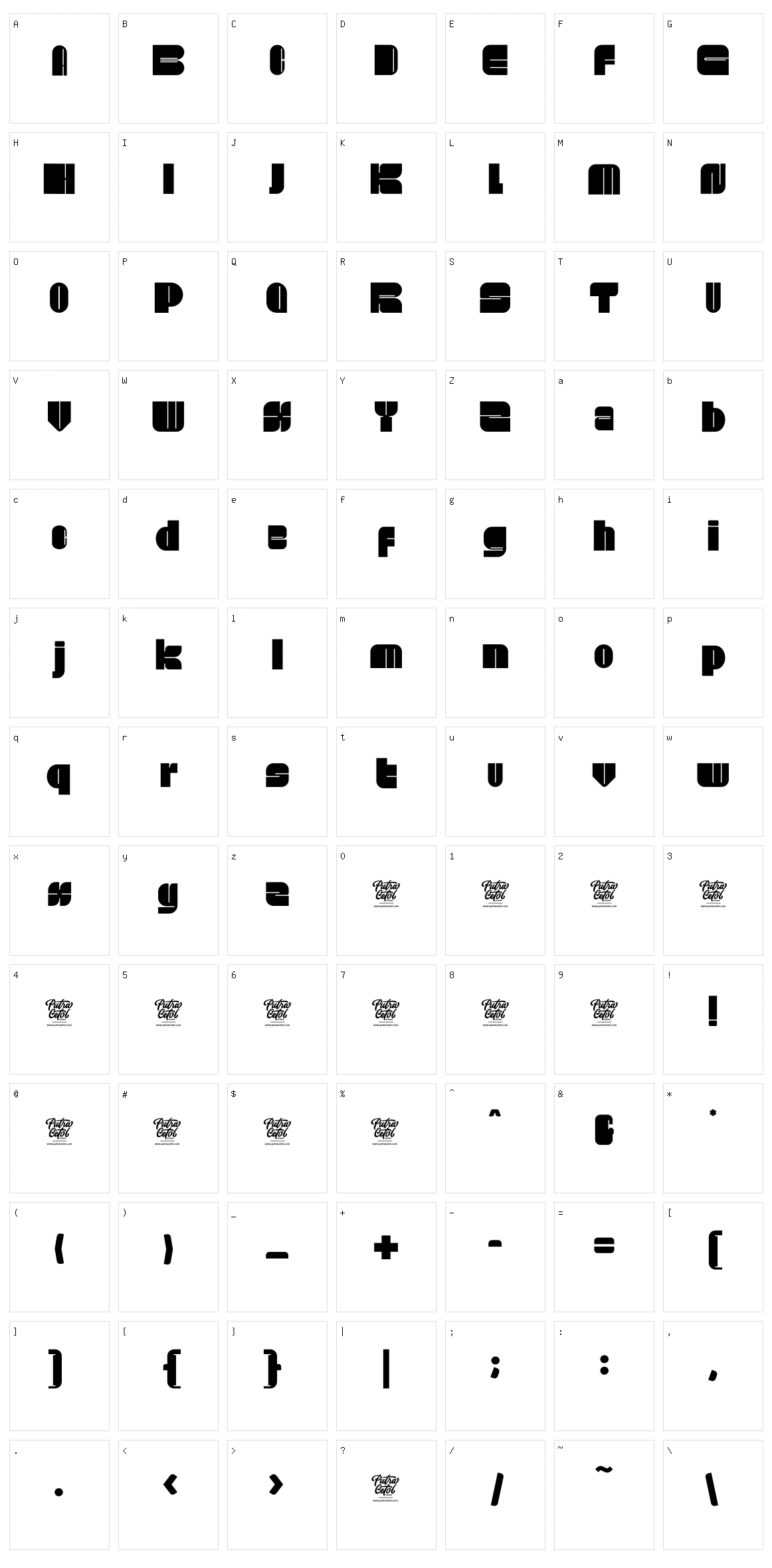
The free font Truck Machine is carefully designed by PutraCetol Studio, showcasing a thoughtful balance of creativity and usability and falls under the Groovy font style. When you download the ZIP file, it contains only 528.88 KB of font files, making it lightweight and quick to download. Please review the license details below to understand permitted usage and distribution rights. If license information is not available, we recommend using this font for personal projects only or contacting the author directly for commercial usage permissions.